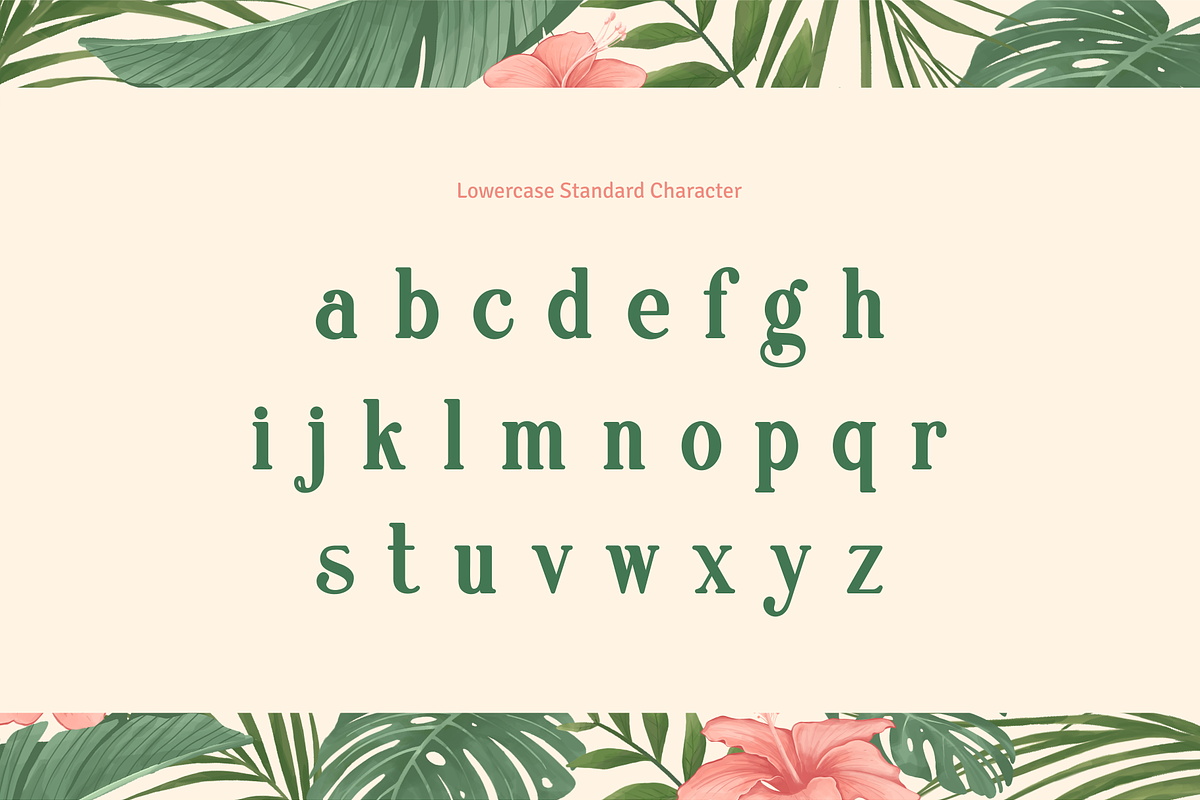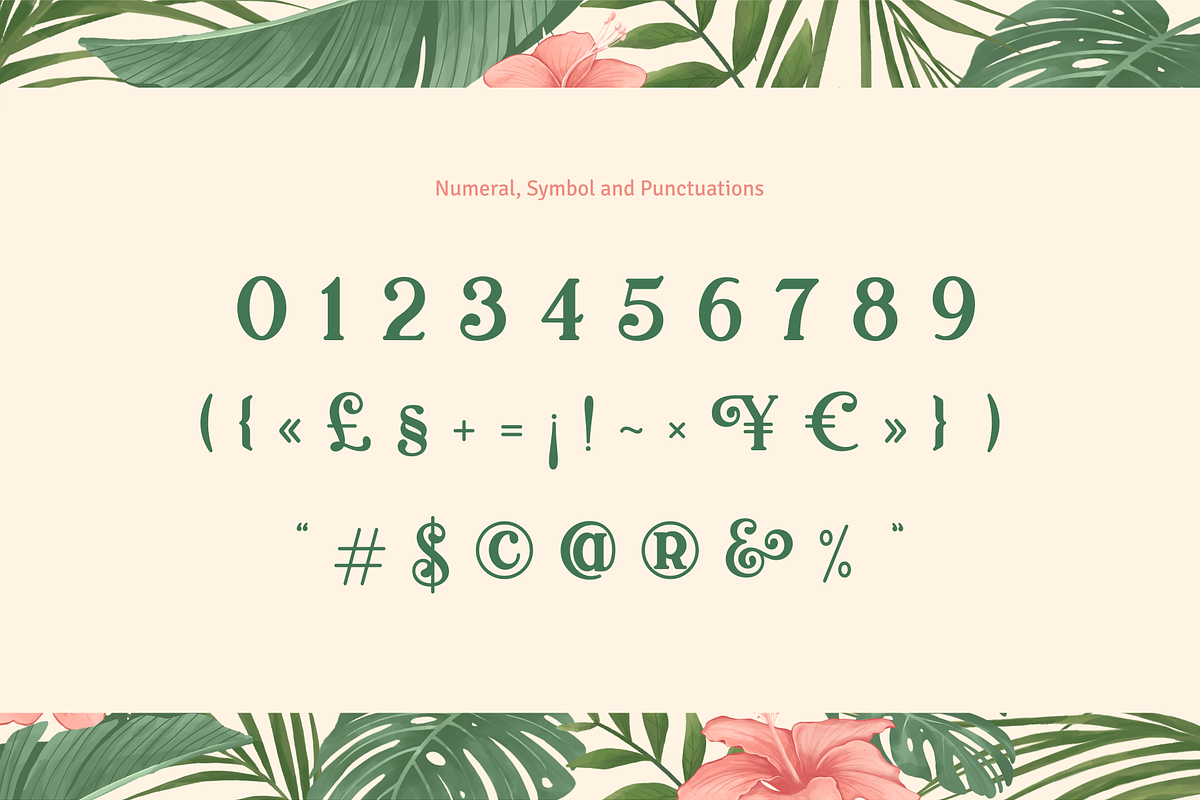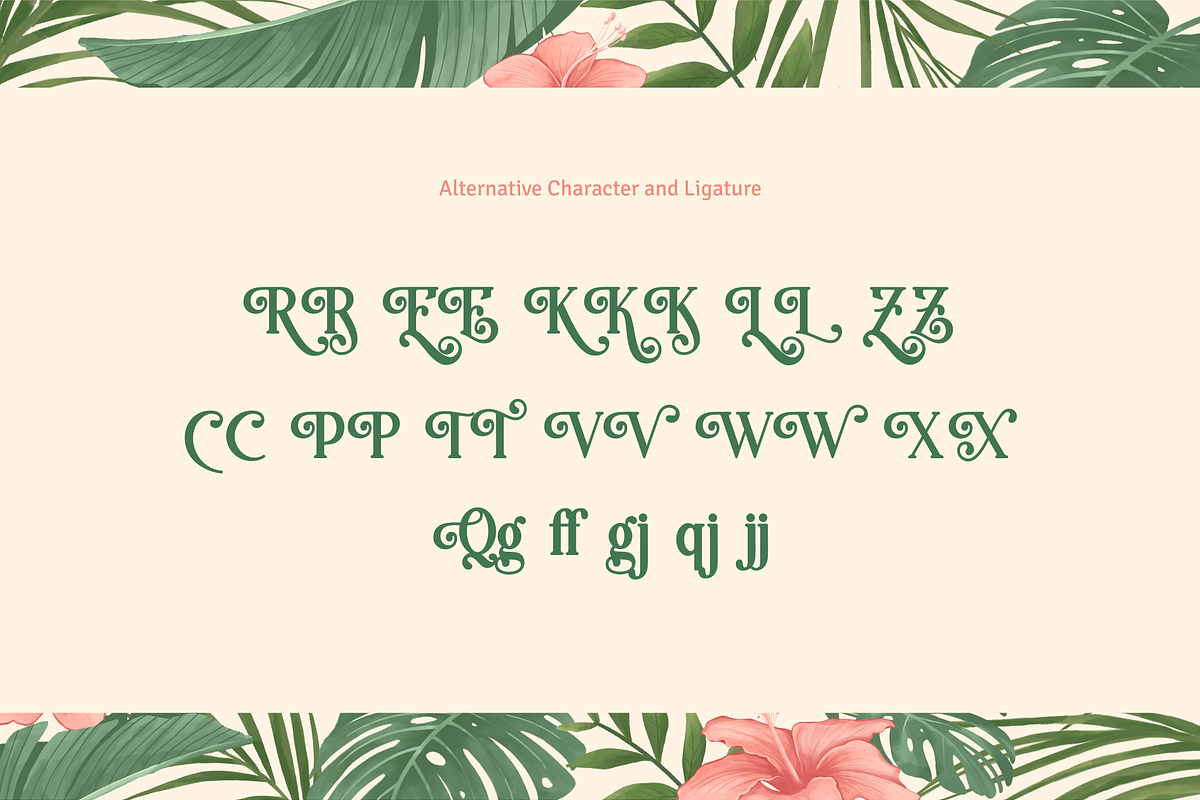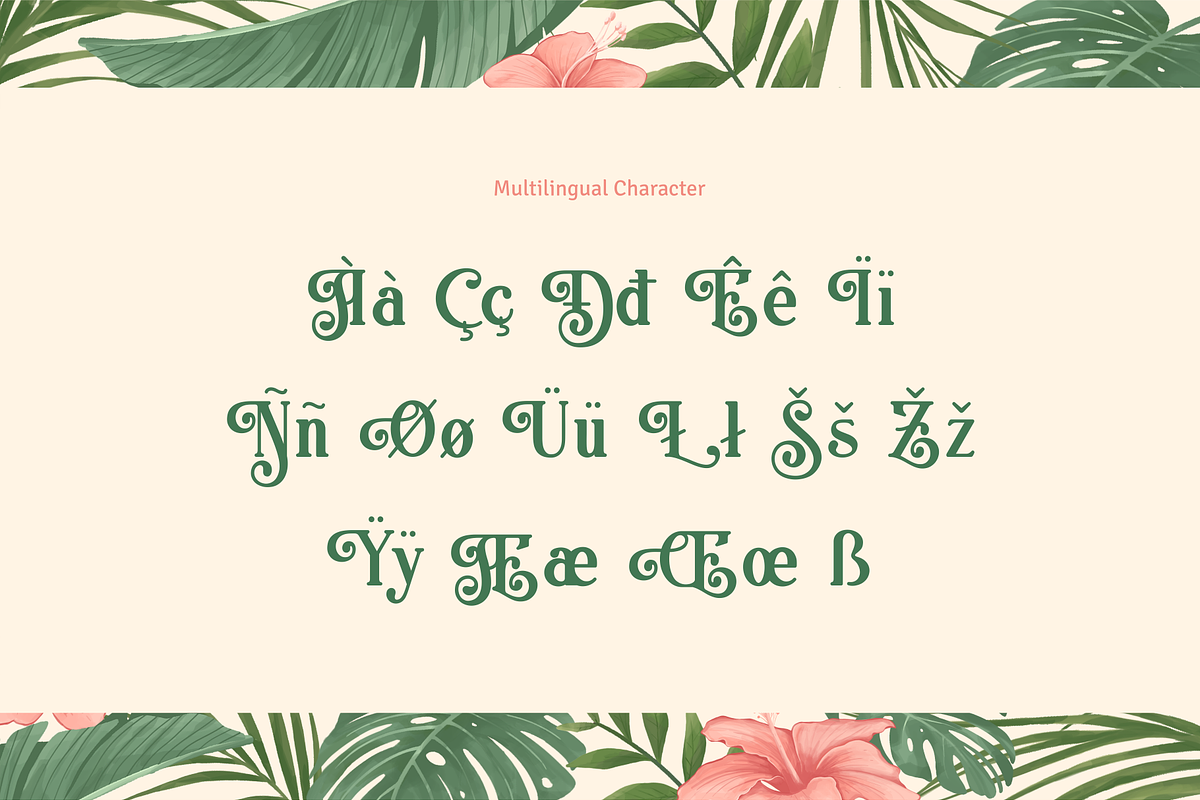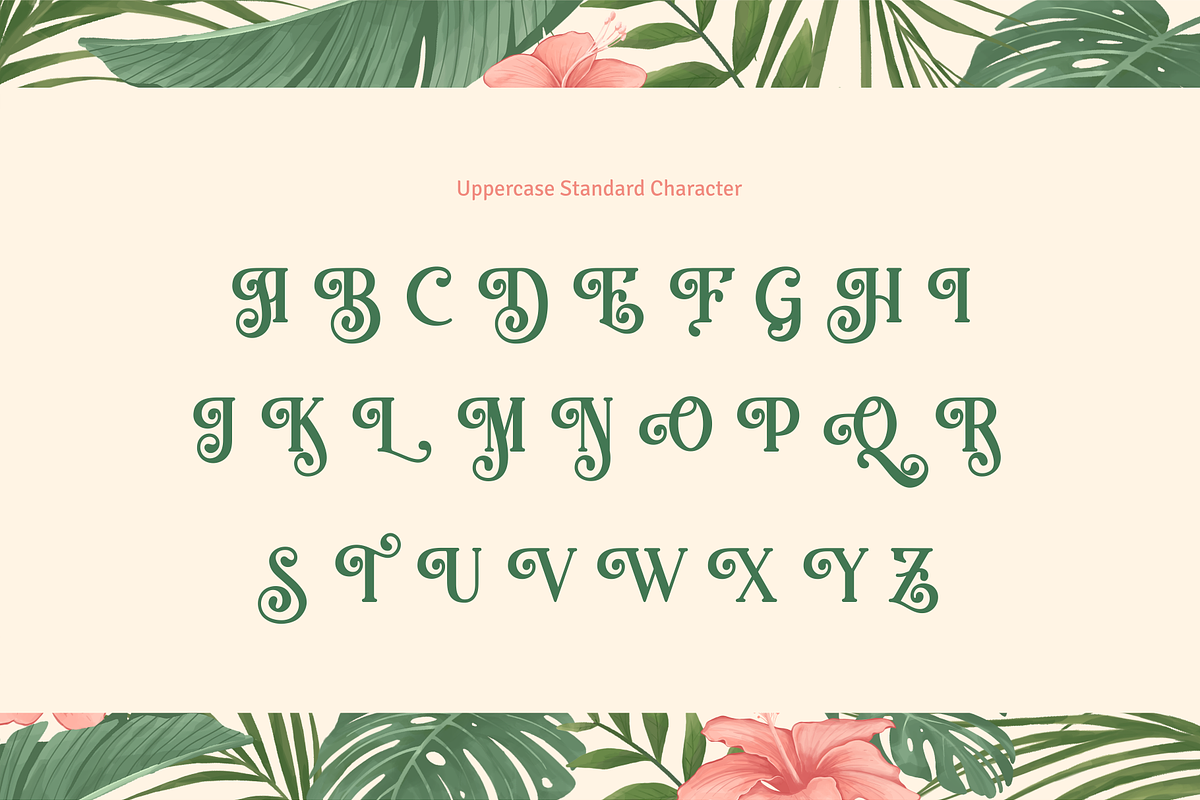
Treva del Mar
TREVA DEL MAR is a serif font with uppercase decorative, very elegant in a tropical style. It is suitable for display fonts, logotypes, designs for packaging, label design, or food-related designs. Plus a bonus leaf and flower watercolor (PNG Files), it will support you in making designs later.